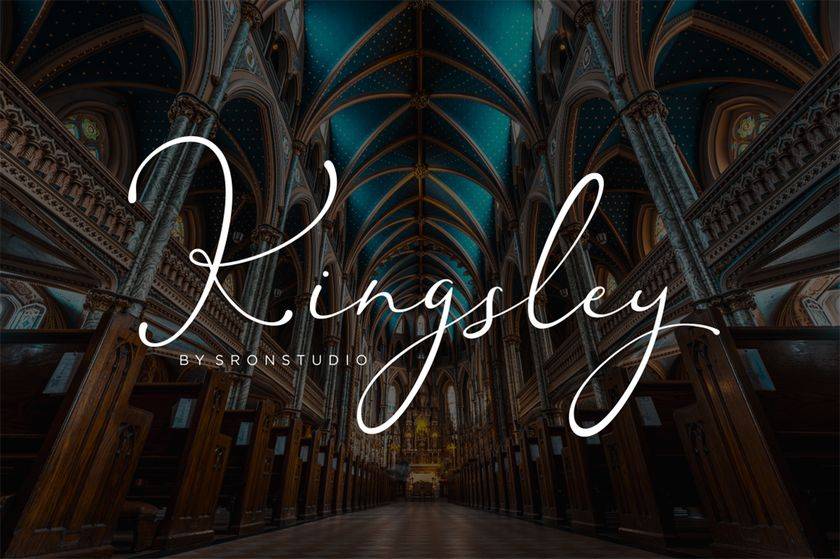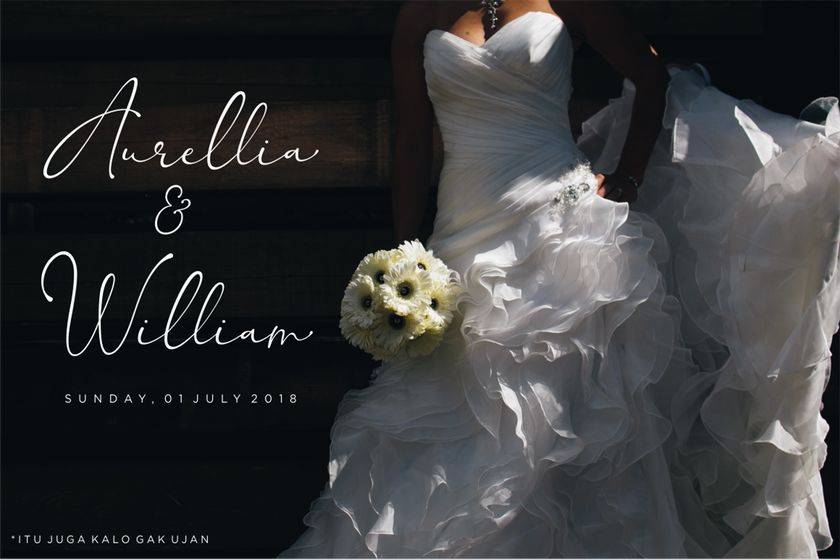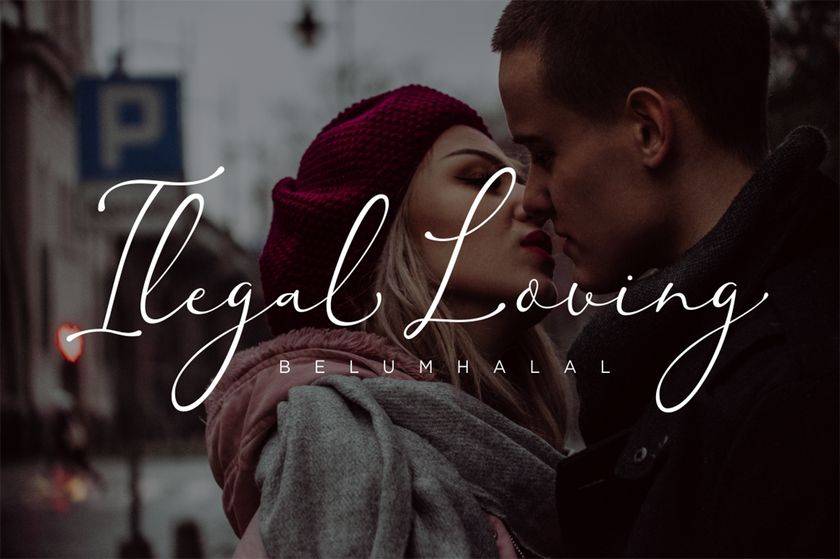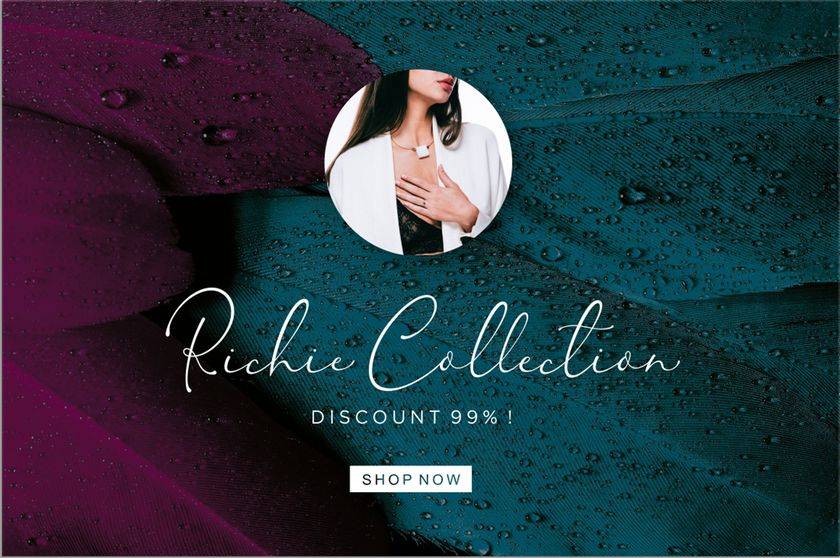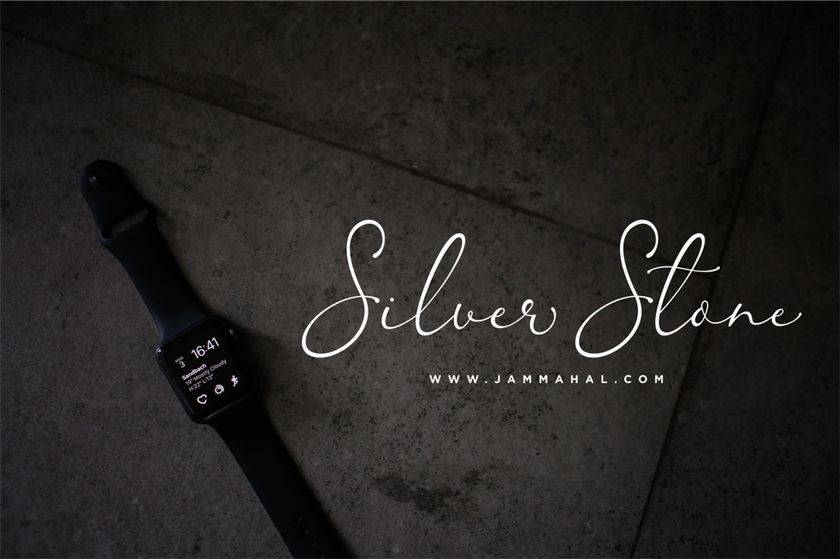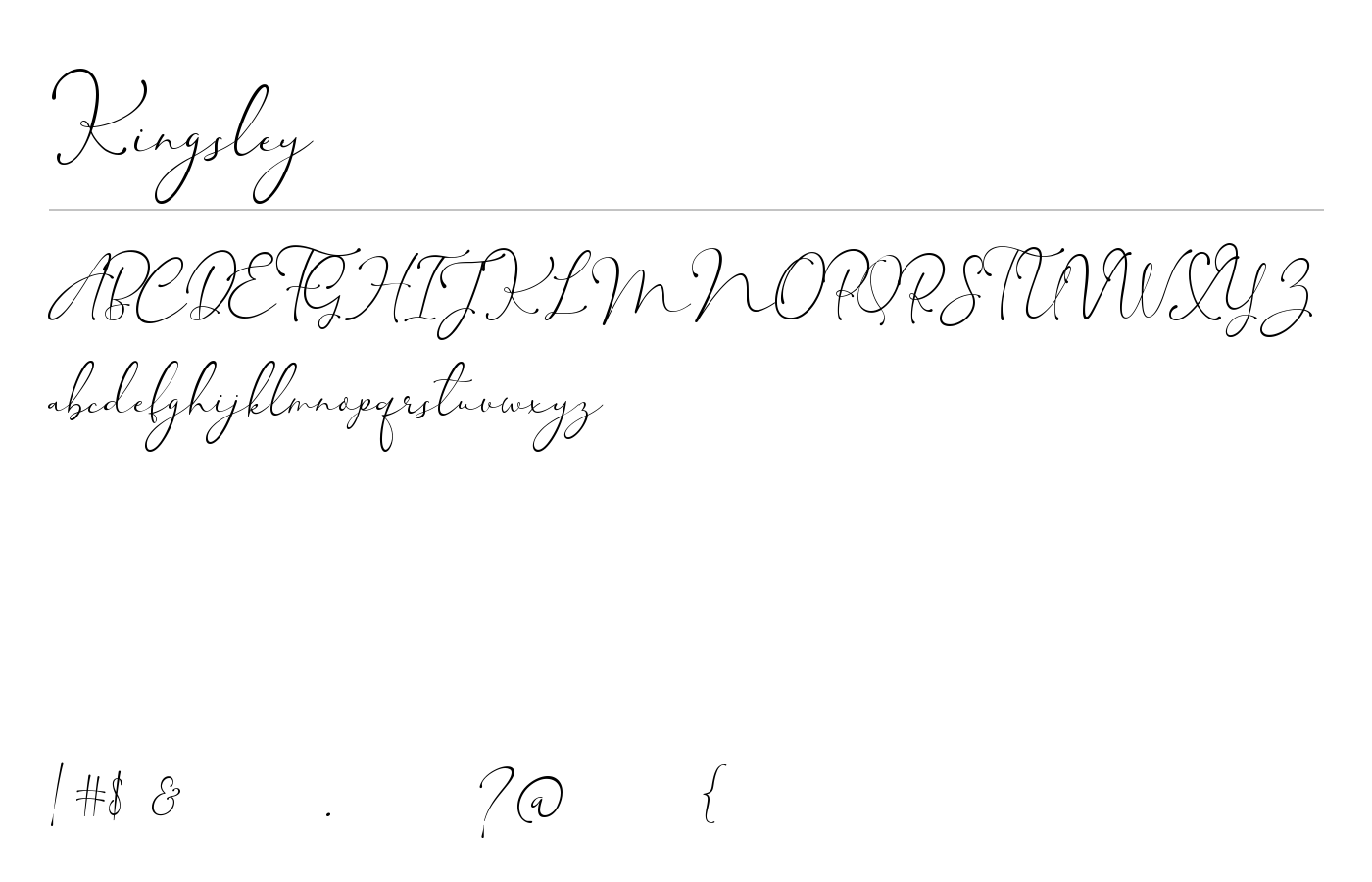
Kingsley Font is a delicate, elegant script typeface with thin, flowing strokes that resemble fine handwriting. Its light weight and high-contrast lines give it a graceful and sophisticated feel, making it ideal for luxury branding, wedding invitations, and feminine editorial designs. This font works best in decorative roles where an airy, stylish touch is desired.
Kingsley Font